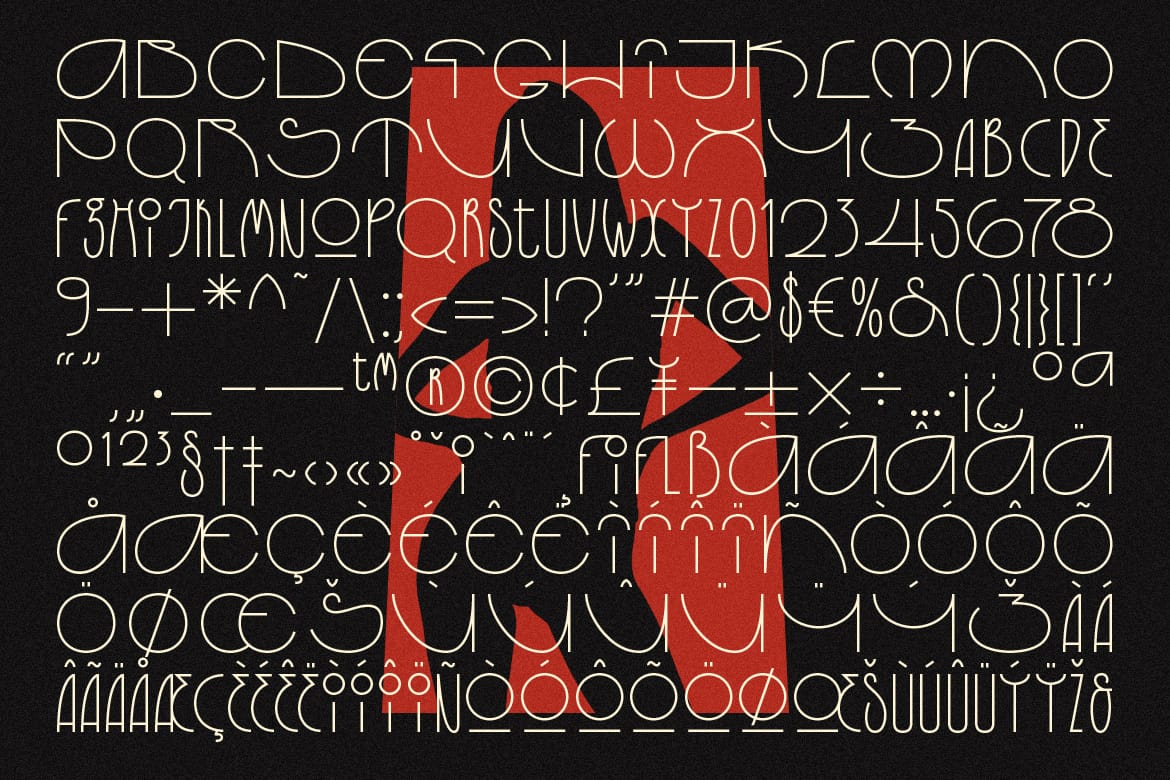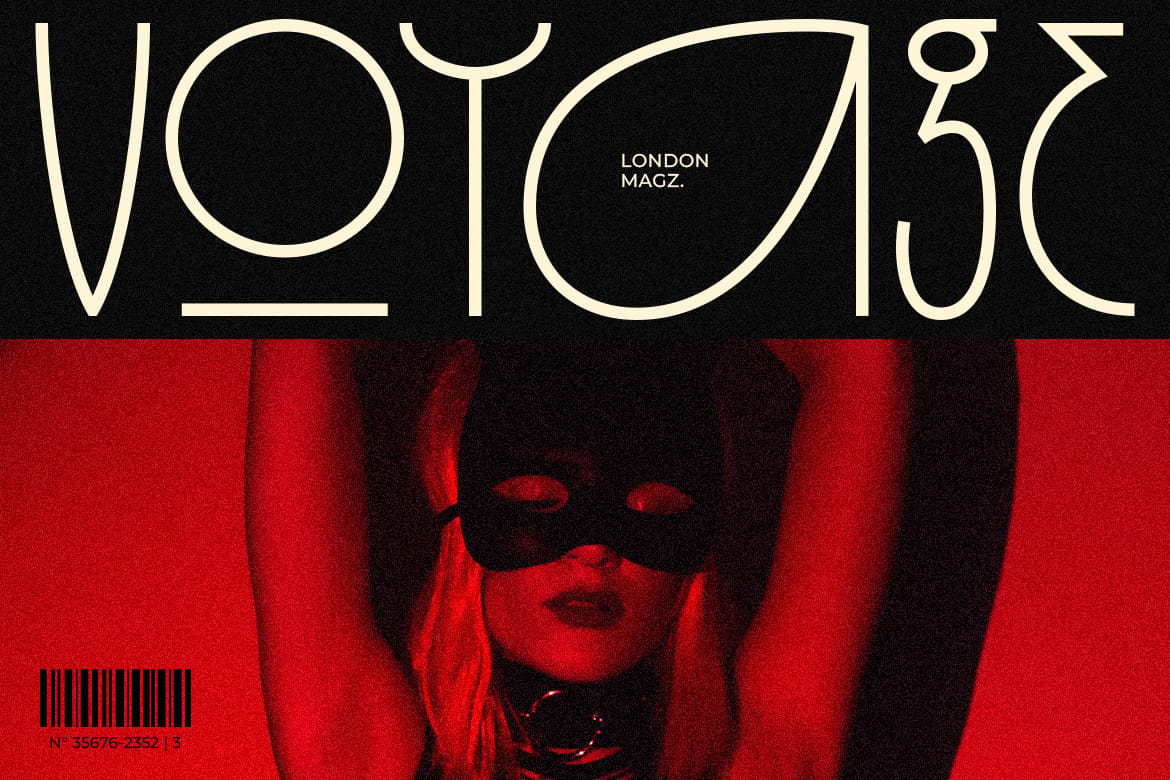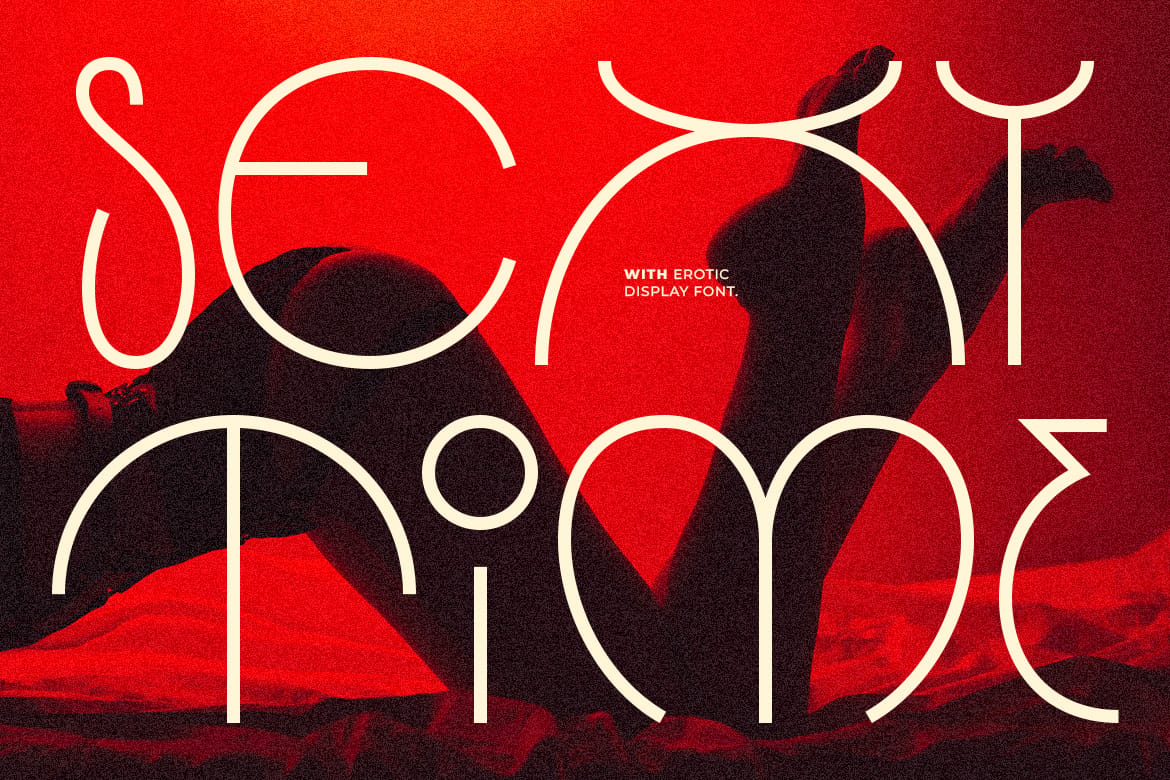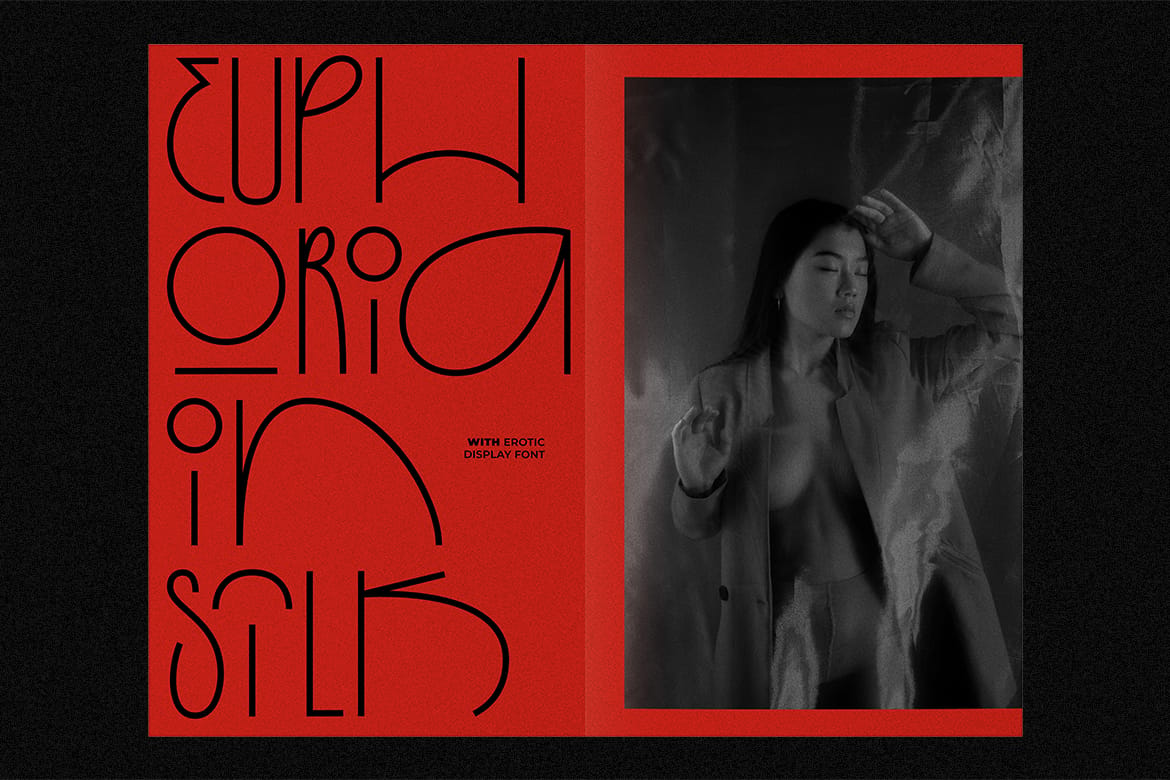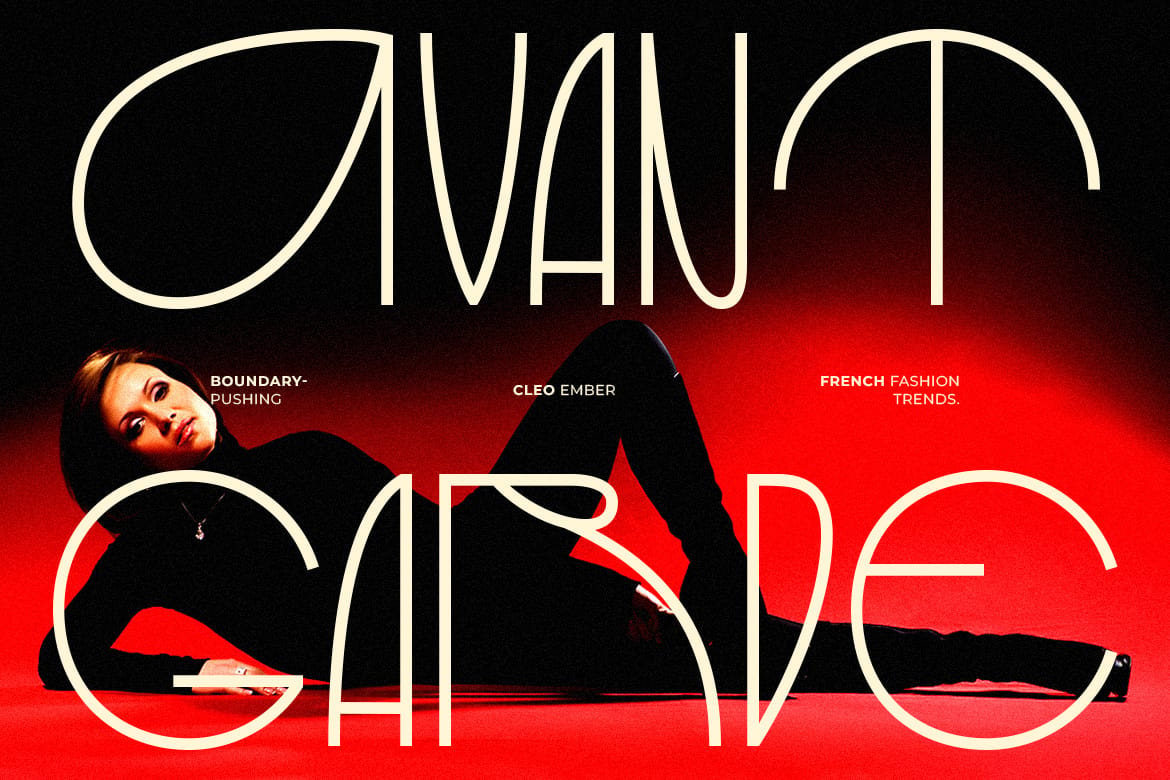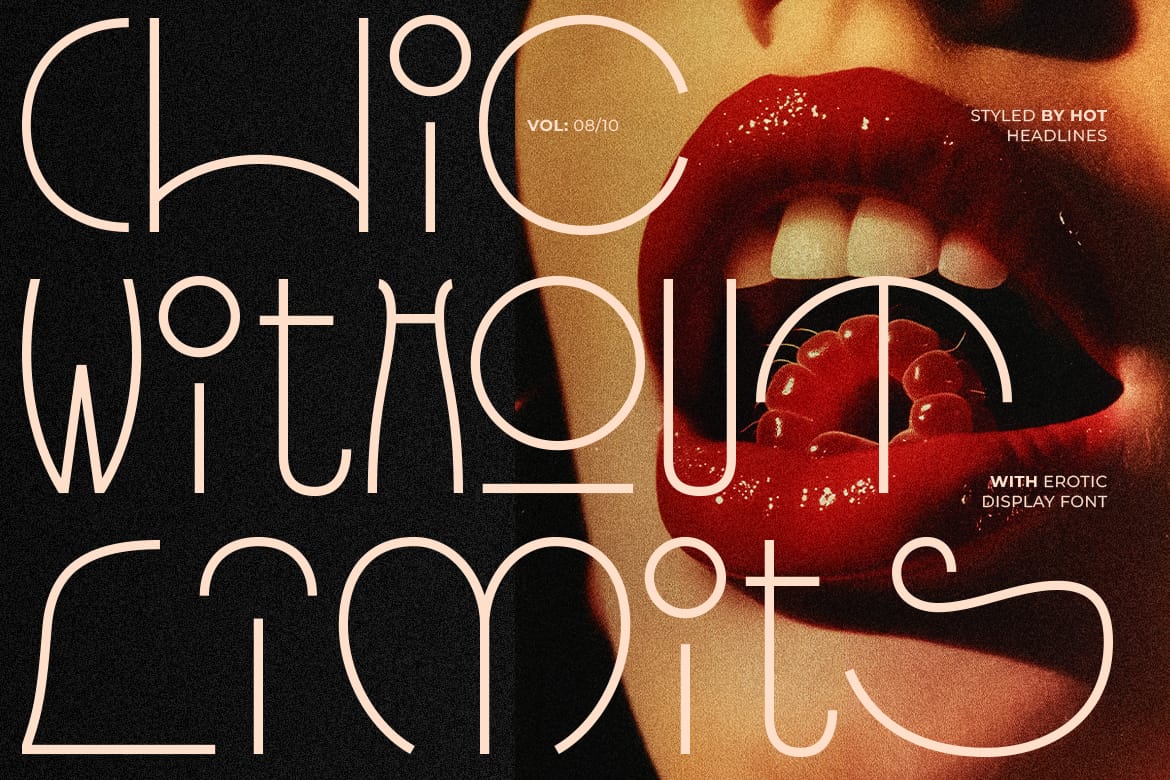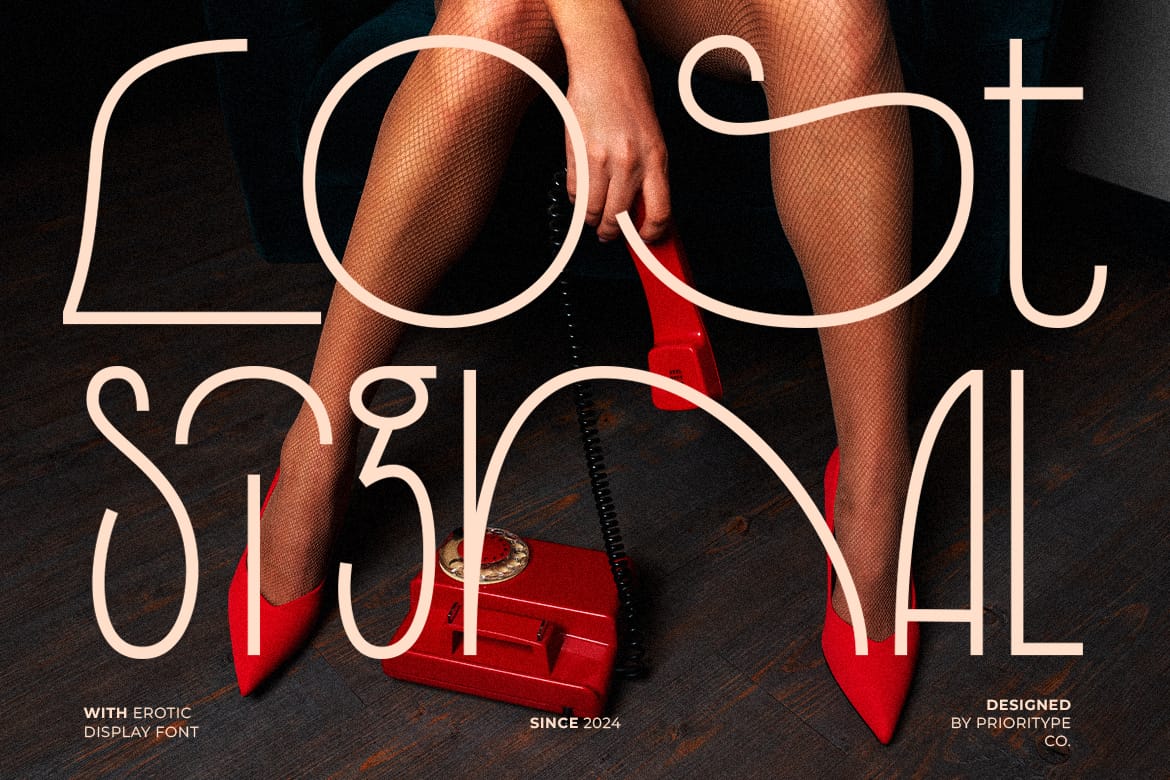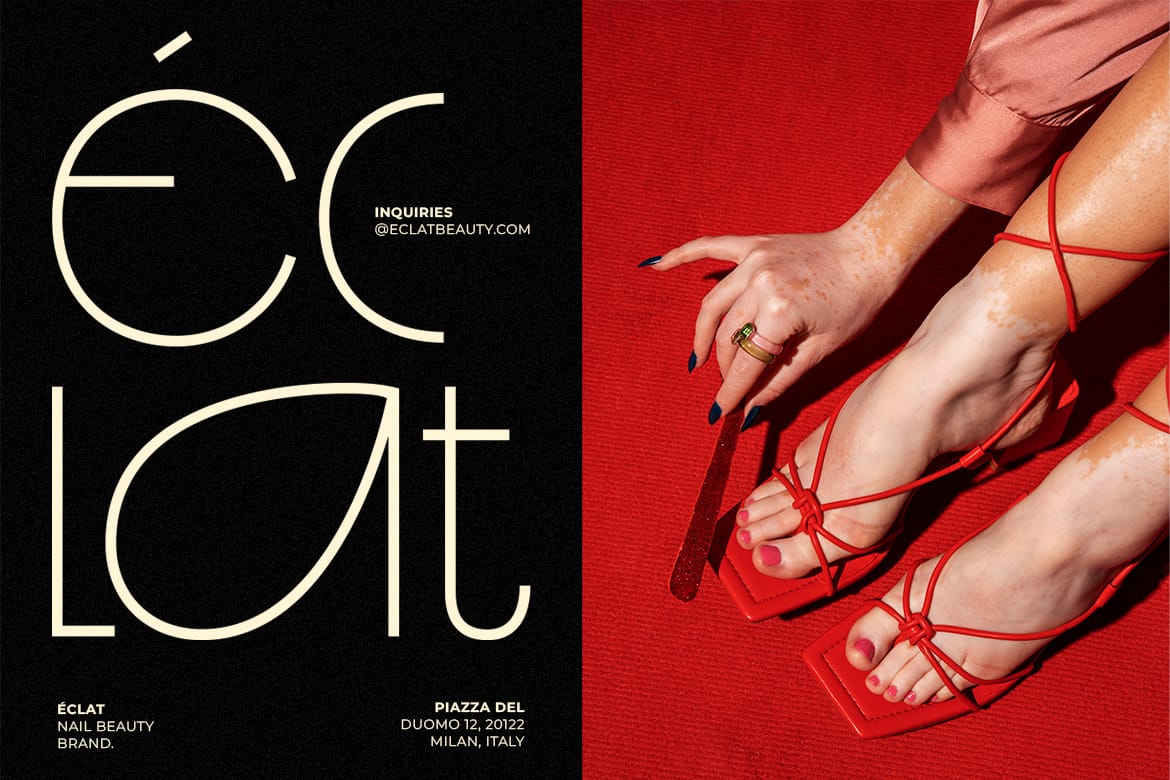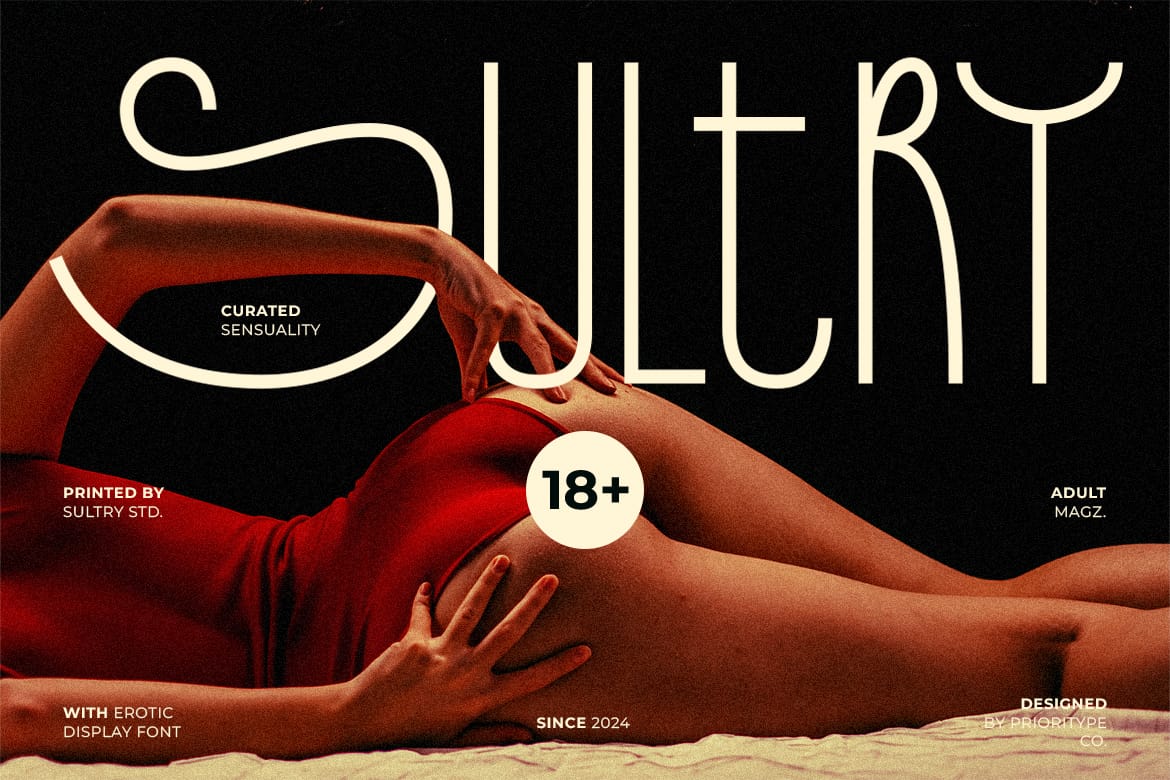
Erotic Display Font
A font crafted for bold, expressive designs that capture attention and ignite intrigue. With its sensuous curves and striking lines, Erotic Display is ideal for projects that seek a daring, sophisticated aesthetic. Perfect for posters, high-end branding, and avant-garde magazines.